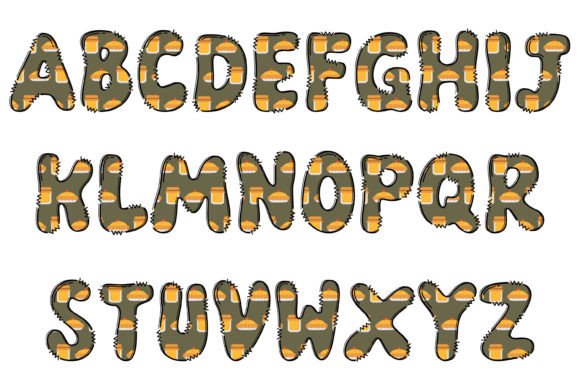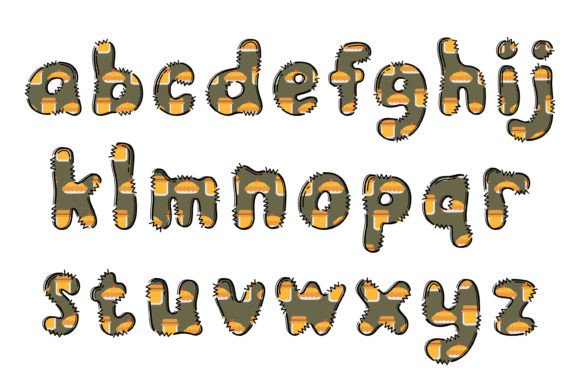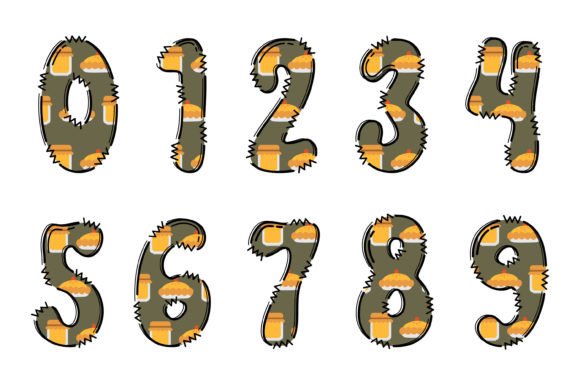
The Perfect Recipe for Whimsical Designs: Apple Pie and Jar Font
Who hasn’t experienced that moment of pure joy when a child’s face lights up at the sight of a beautifully designed children’s book? As a designer, you know the magic that happens when you combine engaging visuals with a dash of creativity. For me, that moment happened when I stumbled upon the delightful Apple Pie and Jar Font, a perfect blend of playfulness and artistic flair.
Whether you’re crafting posters, invitations, or greeting cards, the Apple Pie and Jar Font is an excellent choice to add a touch of whimsy to your designs. This versatile font is designed to be easy to read, making it perfect for young audiences. Plus, its compatibility with cutting machines like Cricut Design Space opens up a world of possibilities for DIY projects.
- Unique Characteristics: Apple Pie and Jar Font features a distressed, vintage aesthetic with intricate details and textures, perfect for creating a rustic, homemade look.
Apple Pie and Jar Font Review
Overall, I was impressed with the unique, vintage aesthetic of Apple Pie and Jar Font. ✨ The font’s distressed texture and imperfections give it a charming, handmade feel that’s perfect for rustic or country-themed designs. ✨ The font’s wide range of weights and styles also make it versatile and easy to use in various contexts.
- Unique, vintage aesthetic that’s perfect for rustic or country-themed designs
- Wide range of weights and styles for versatility
- Distressed texture and imperfections give it a charming, handmade feel
However, there are some limitations to consider. ⚠️ The font may not be suitable for formal or professional designs, as its distressed texture and imperfections may come across as unpolished or amateurish. ⚠️ Additionally, the font’s unique aesthetic may be overwhelming or difficult to read in certain contexts, such as in small sizes or with complex typography.
Overall, I would recommend Apple Pie and Jar Font for designers looking to add a touch of rustic charm to their projects. However, it’s essential to use it thoughtfully and in contexts where its unique aesthetic will shine.
The Apple Pie and Jar Font is perfect for creating vintage-inspired designs, such as recipe cards, invitations, and advertisements.
For optimal results, use the font in conjunction with distressed textures and warm color schemes.